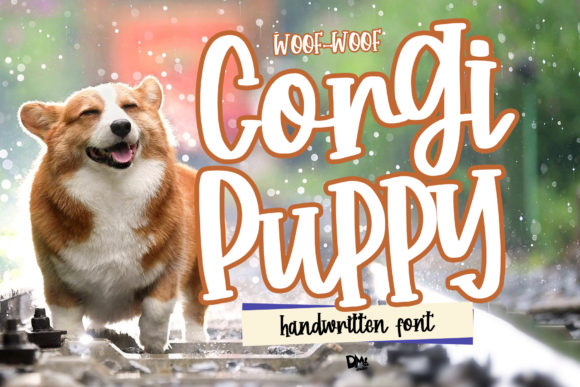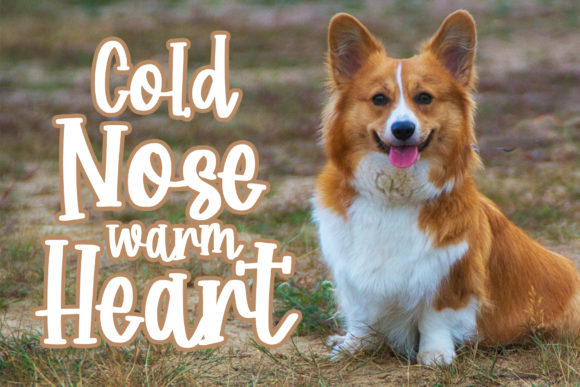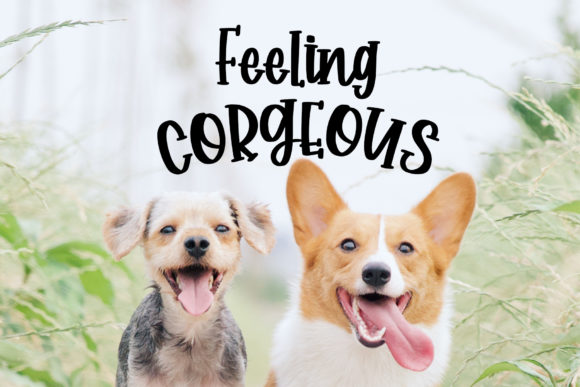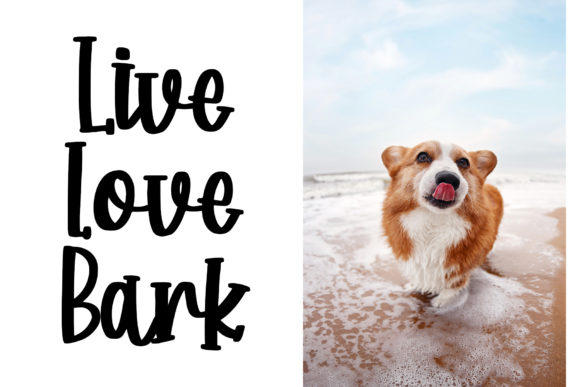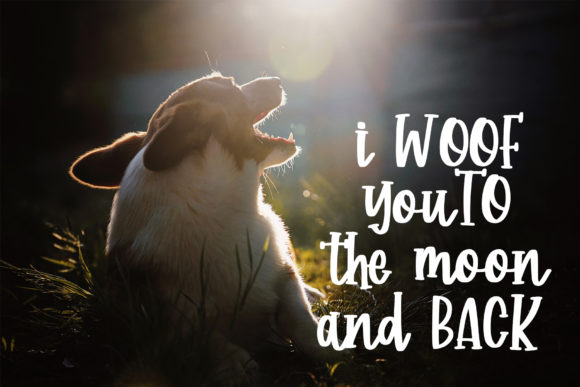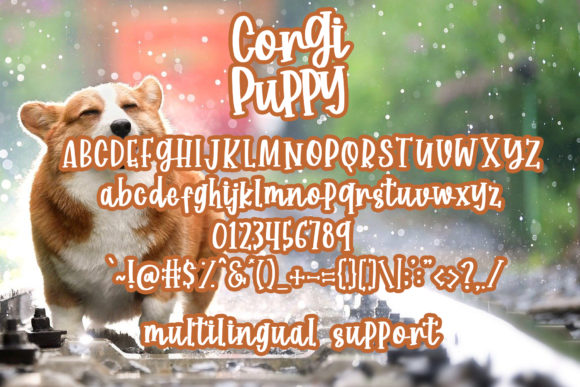
Corgy Puppy Font
About Corgy Puppy Font
Corgy Puppy is a fun, quirky and authentic font that will easily embody any romantic craft idea. Get inspired by its unique charm!